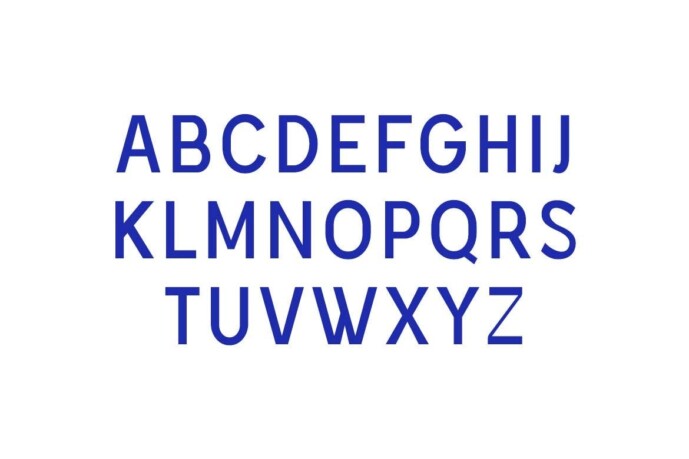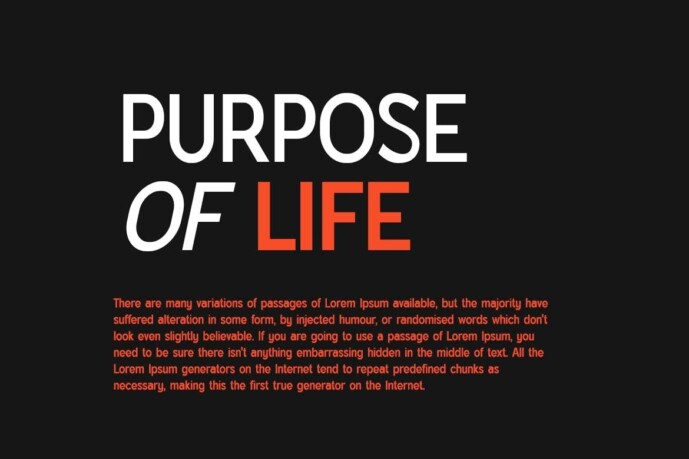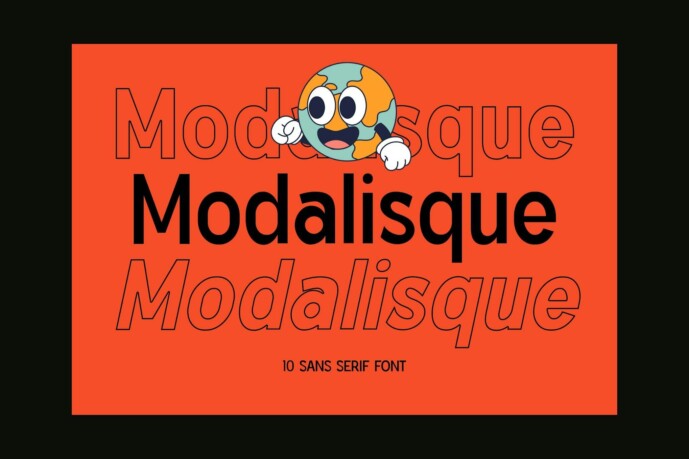
Modalisque Font Family
Modalisque Font Family – Sans Serif font that gives a feeling of beauty, class, elegance and modernity. This font is perfect for a wide variety of projects, such as signature, stationery, logo, wedding, typographic quotes, magazine or book covers, website headers, branding , packaging design, etc. Additionally, fashion-related branding or editorial design exhibits both masculine and feminine qualities